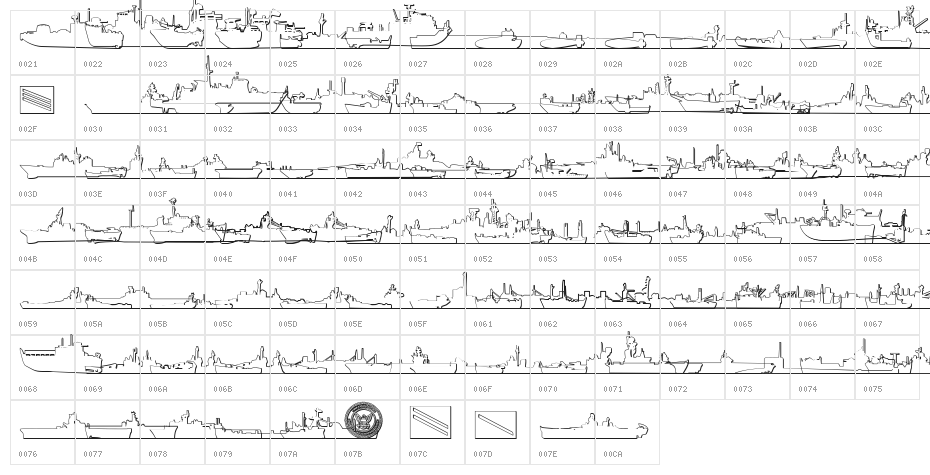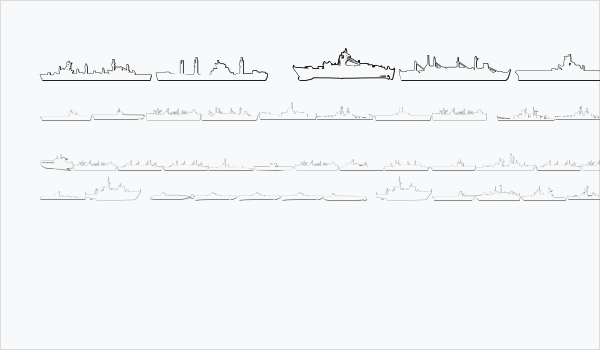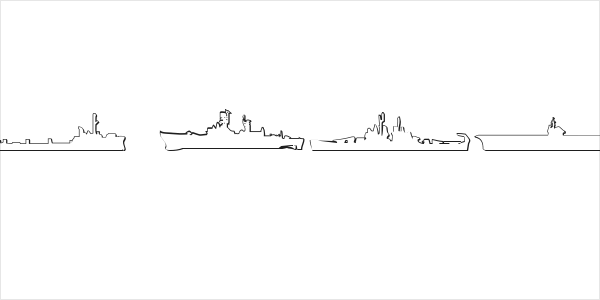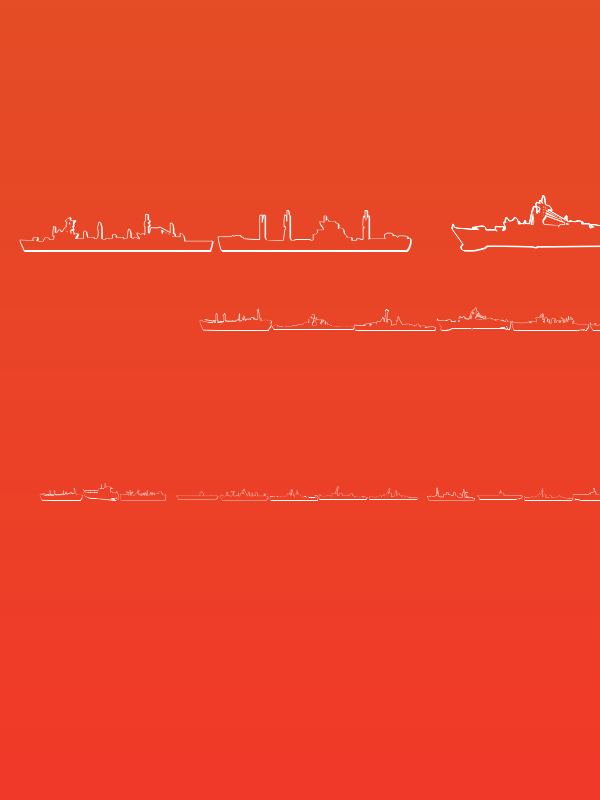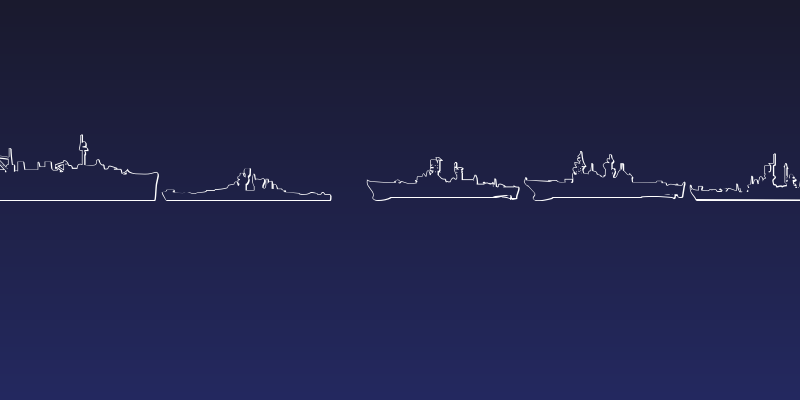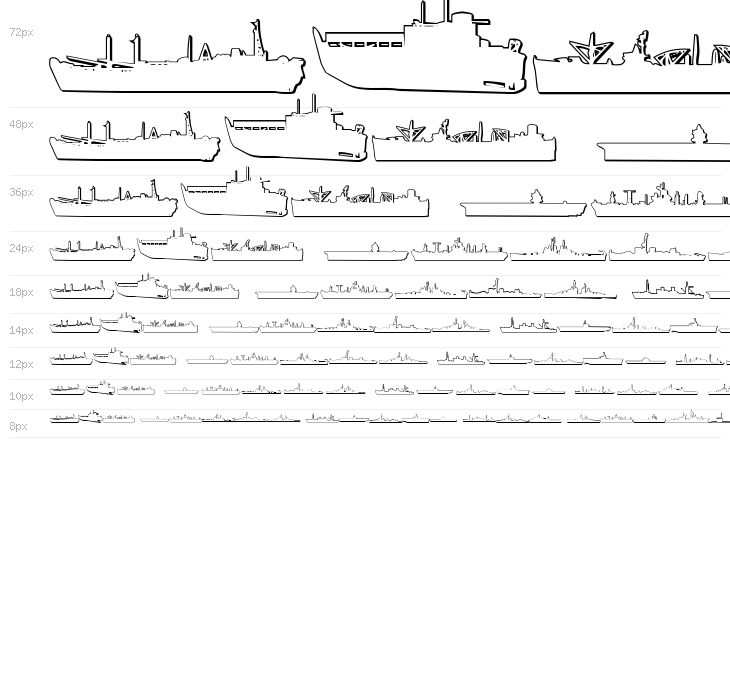
US Navy Mirror 3D Font
US Navy Mirror 3D Description
A highly stylized decorative font composed of detailed ship silhouettes forming each character, creating a unique maritime-themed design.
| Overall Style | Decorative, Thematic |
| Use Case | Logos, Headlines, Thematic Displays |
| Proposed Projects | Nautical-themed branding, maritime event posters, military or navy-related designs, and unique display headlines. |